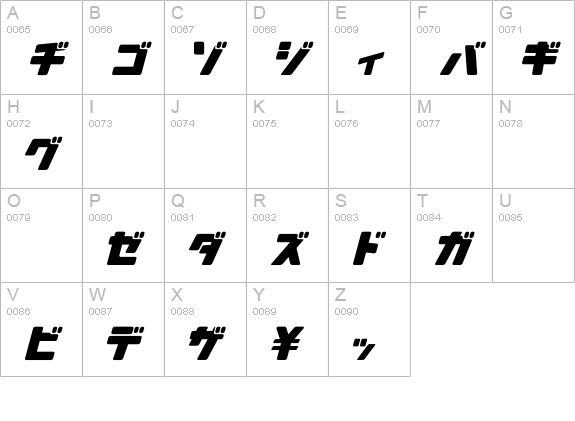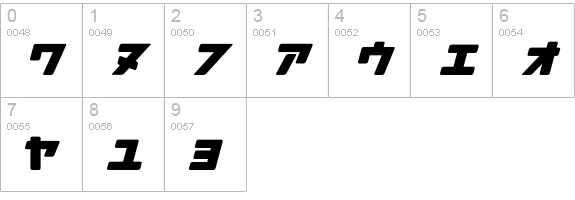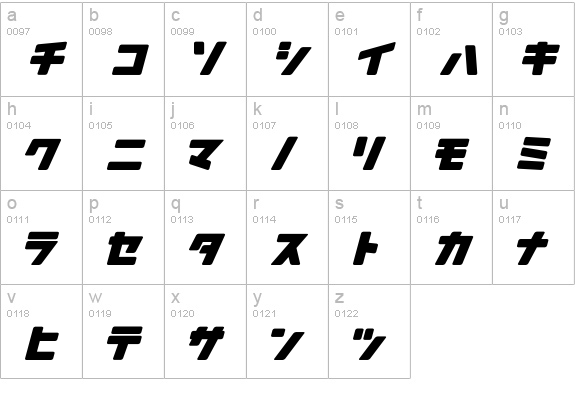
SsTaitoh-Katakana Font Details
SsTaitoh-Katakana font is a beautifully crafted typeface that showcases the elegance and precision of the Japanese Katakana script. With its sleek and modern design, this font effortlessly captures the essence of the Japanese culture and language, making it a perfect choice for various creative projects. The SsTaitoh-Katakana font features clean lines and sharp edges, giving each character a distinct and refined appearance. Its legibility and clarity make it an excellent choice for both print and digital media, ensuring that your message is effectively communicated to your audience. One of the most remarkable aspects of SsTaitoh-Katakana font is that it is freely available to download at FontsMarket.com. This means that you can easily access and utilize this stunning font for any personal or commercial project without any restrictions. Whether you are designing a logo, creating a website, or designing a poster, this font will add a touch of sophistication and authenticity to your work. Additionally, the SsTaitoh-Katakana font offers a wide range of characters and glyphs, allowing you to fully express your creativity and bring your ideas to life. The versatility of this font enables it to adapt to various design styles, making it suitable for a diverse range of projects. Experience the beauty and versatility of SsTaitoh-Katakana font today by downloading it for free at FontsMarket.com. Elevate your designs with this stunning font and captivate your audience with its timeless appeal.